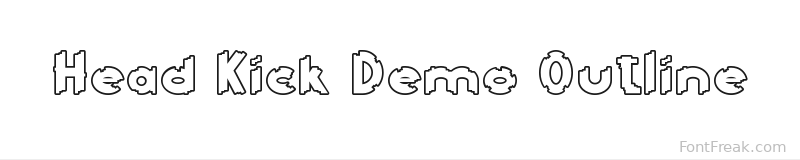
Head Kick Demo Outline
About Head Kick Demo Outline
Head Kick Demo Outline is a distinctive display font created by Noah Type, characterized by its playful and bold outline style. This font falls into the decorative category, making it an excellent choice for projects that require a touch of whimsy and creativity. The bold stroke weight combined with the playful curves gives it a unique presence, while the outline design adds a layer of depth and visual intrigue. The spacing is thoughtfully designed, ensuring that each letter maintains clarity and impact, making it suitable for various applications.
The versatile nature of the Head Kick Demo Outline font makes it ideal for a variety of use cases. It works wonderfully for eye-catching movie posters, where its bold outline can draw attention to the title and tagline. Additionally, this font can elevate the design of children's book covers or educational materials, providing a fun and approachable aesthetic. For small business owners, it can be an excellent choice for restaurant menus or promotional materials, adding a friendly and inviting touch. Graphic designers will appreciate its potential in creating vibrant branding elements or social media graphics that need to stand out.
Targeted towards graphic designers, small business owners, and content creators, the Head Kick Demo Outline font free download offers a creative solution for those looking to make a statement in their designs. Its unique character and visual appeal distinguish it from more conventional typefaces, making it a memorable choice for any project. This font not only enhances visual communication but also engages audiences with its charismatic style, ensuring that your designs leave a lasting impression. Whether used in digital or print formats, the Head Kick Demo Outline font brings a fresh and lively energy to any creative endeavor.